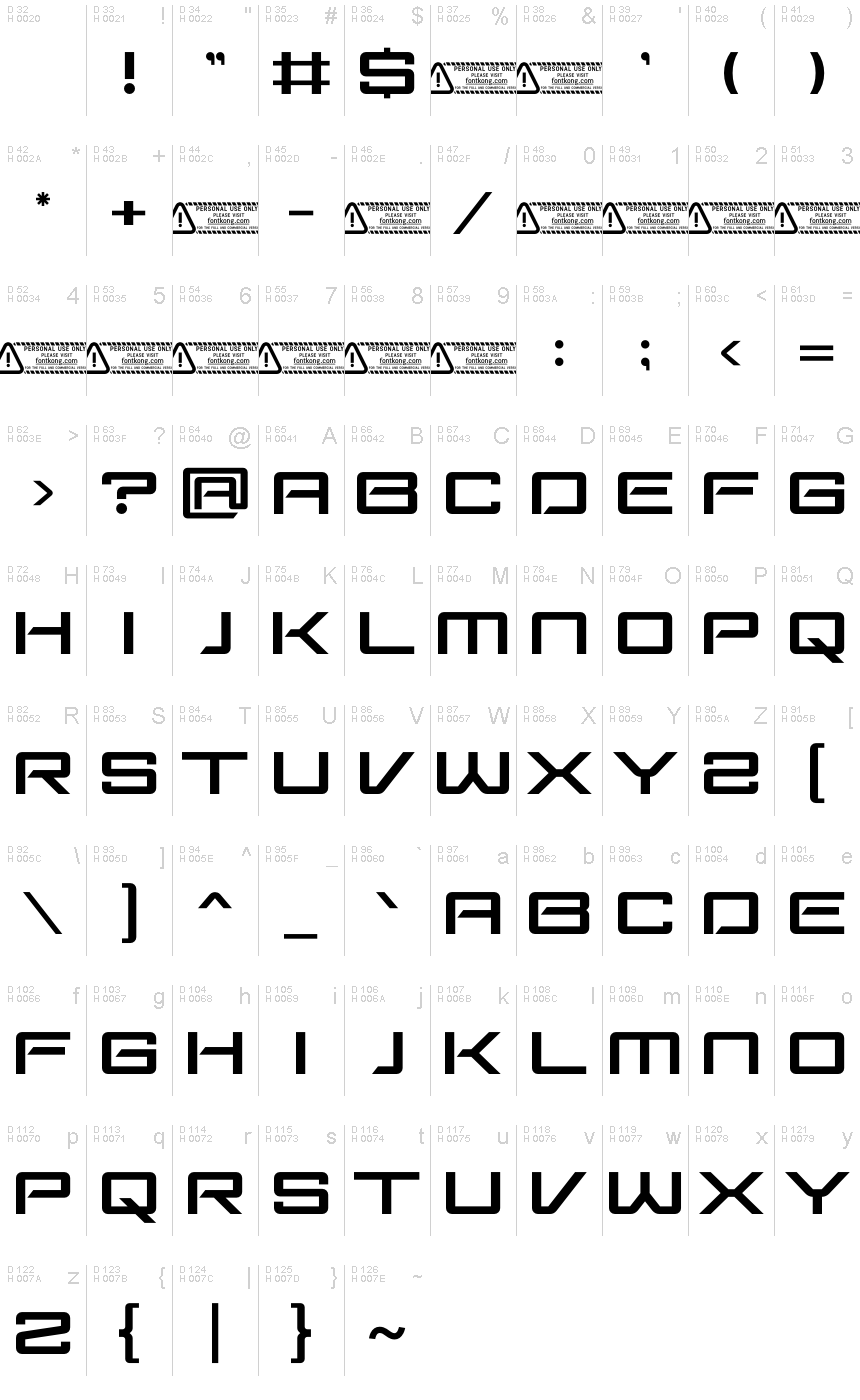
Gamez, a futuristic display font crafted by Kong Font, exudes a captivating blend of technological sophistication and dynamic flair. Its expanded letterforms and sharp, angular edges evoke a sense of modern elegance, seamlessly blending the aesthetic of a digital age with a touch of industrial chic. The font's unique character shapes and bold, attention-grabbing presence make it a standout choice for designers seeking to create impactful visuals that command attention.
This versatile font lends itself well to a variety of design applications, from eye-catching headlines and logo designs to attention-grabbing packaging and branding elements. Its strong, distinctive personality makes it an excellent choice for projects that require a bold, futuristic aesthetic, such as video game interfaces, sci-fi-inspired media, or sleek, high-tech product presentations.